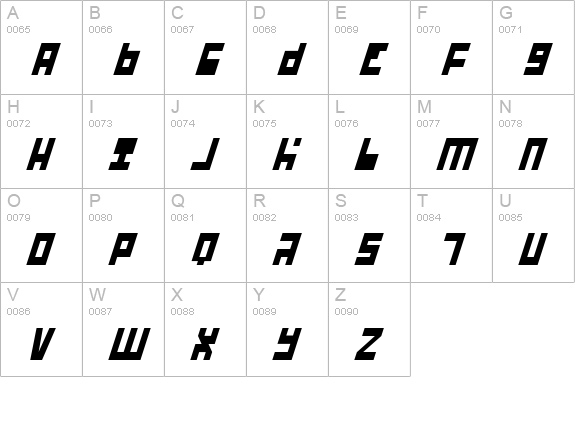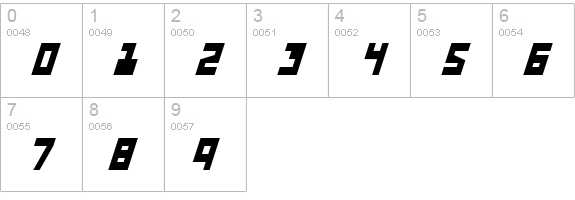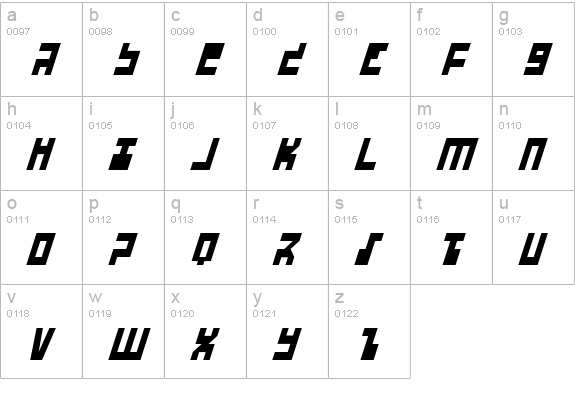
UFO Hunter Italic is a distinctive, italic variant in the UFO typeface family \xE2\x80\x94 well suited to design and typography projects.
Introducing UFO Hunter Italic font, a sleek and futuristic typeface designed for those who seek the unknown and embrace the mysterious. This unique font features slanted and dynamic letterforms that evoke a sense of adventure and discovery. Whether you're investigating extraterrestrial sightings or simply want to add a touch of otherworldly charm to your designs, UFO Hunter Italic is the perfect choice. And the best part? UFO Hunter Italic font is available for free download at FontsMarket.com! Don't miss out on this opportunity to add a captivating and captivating font to your collection. Embrace the unknown with UFO Hunter Italic font today.